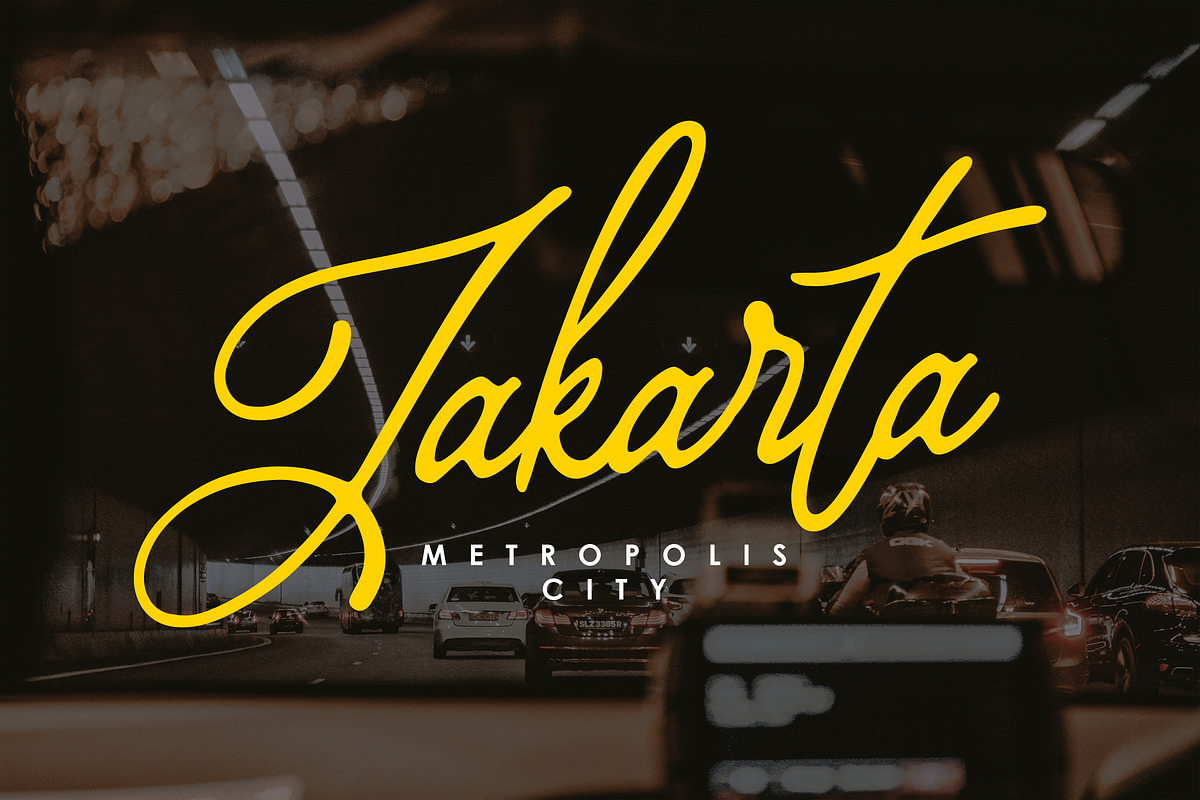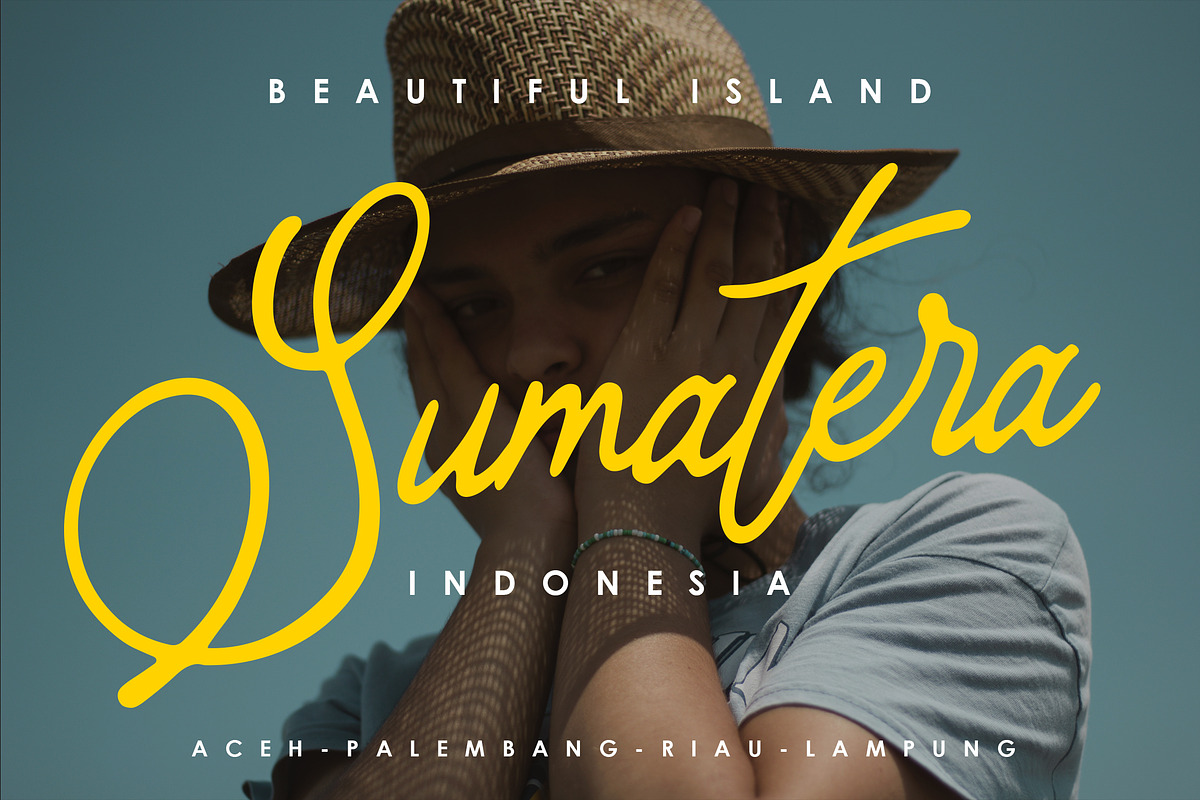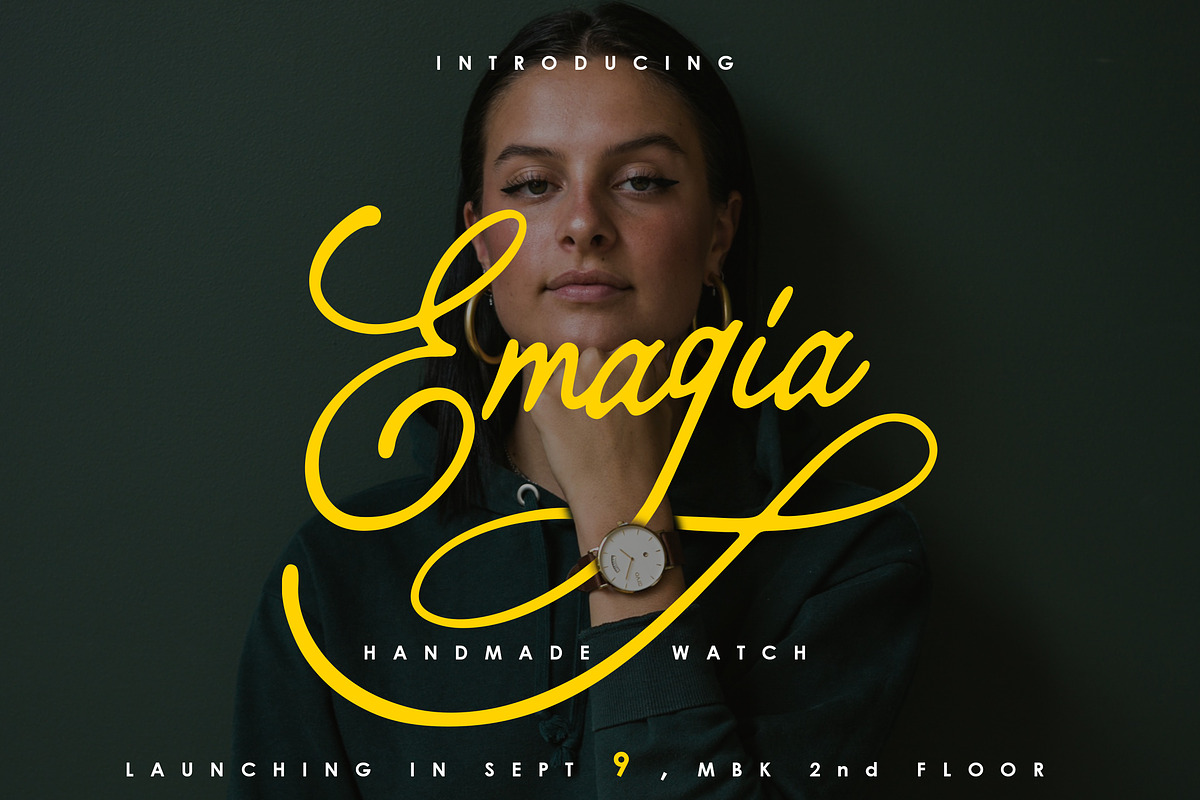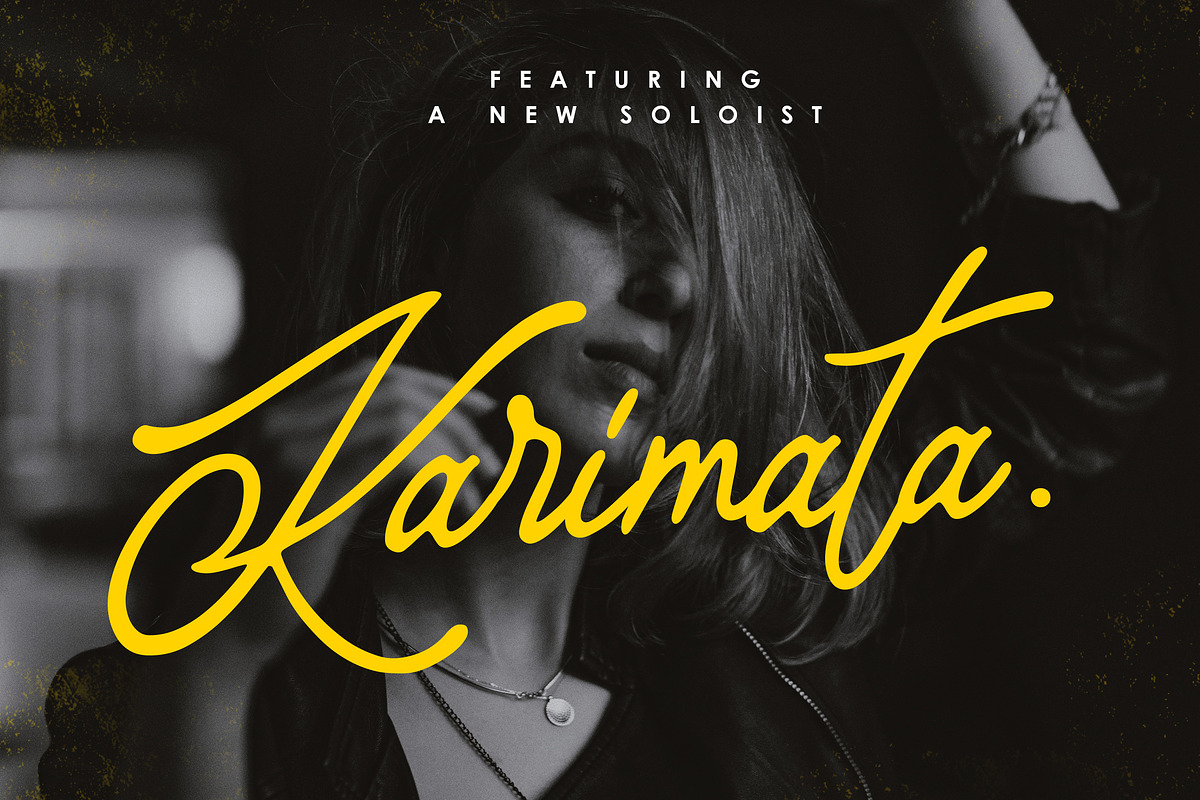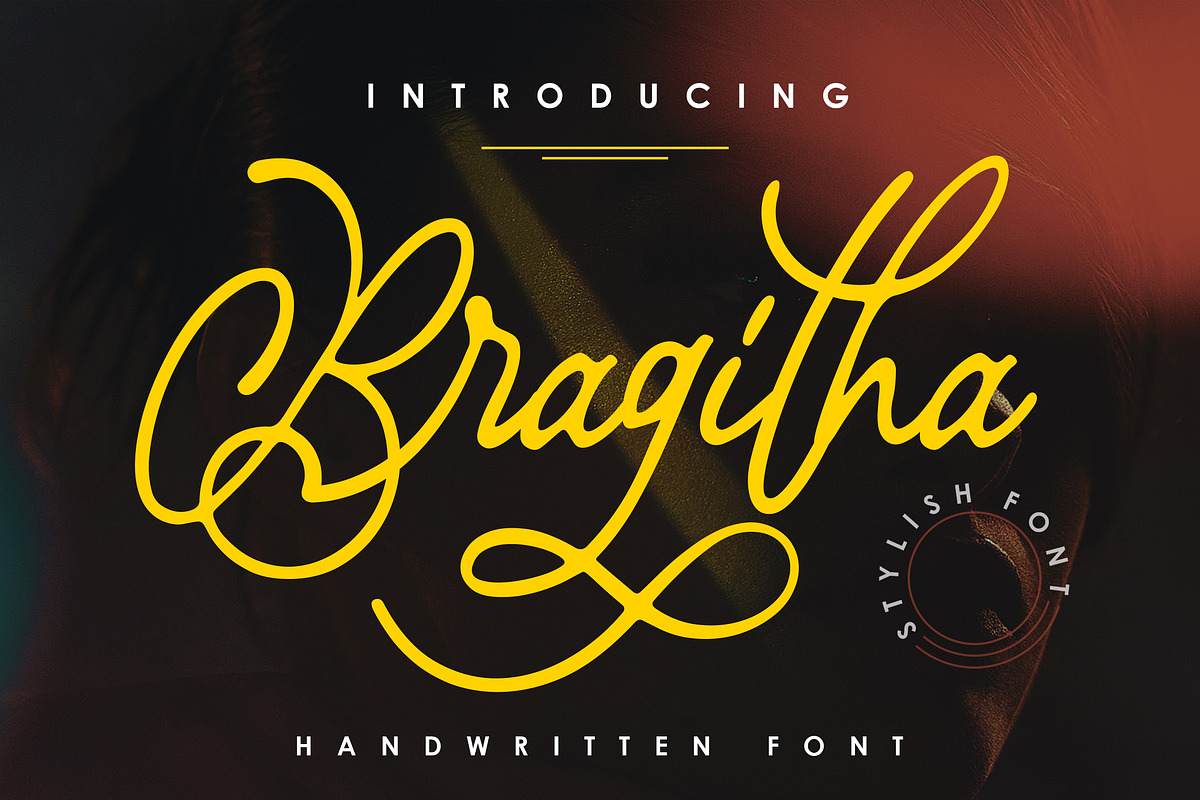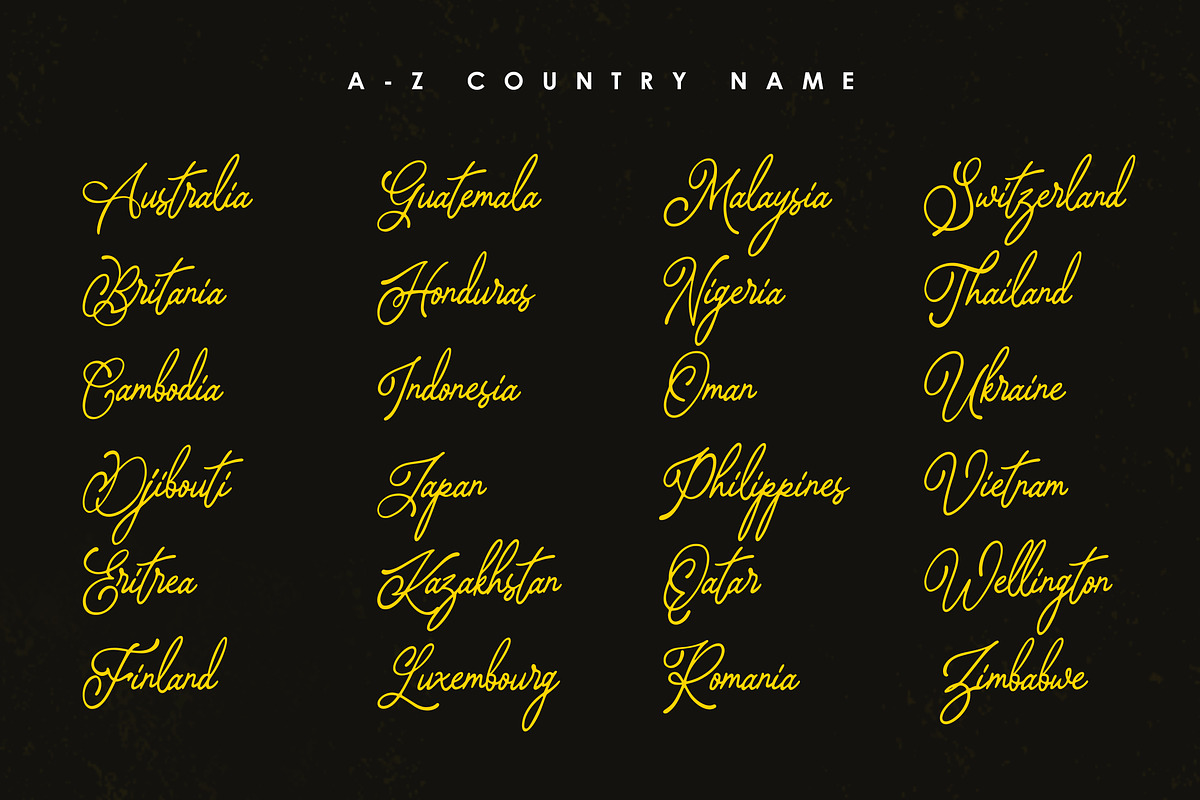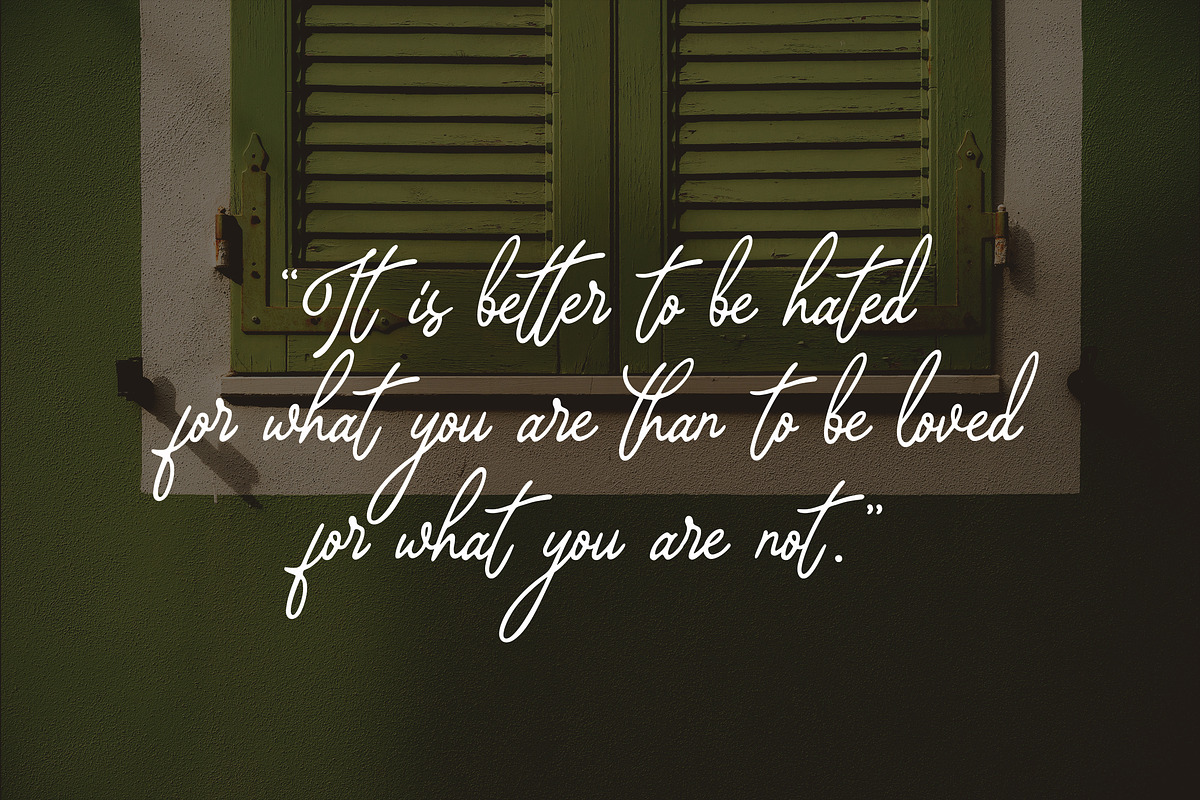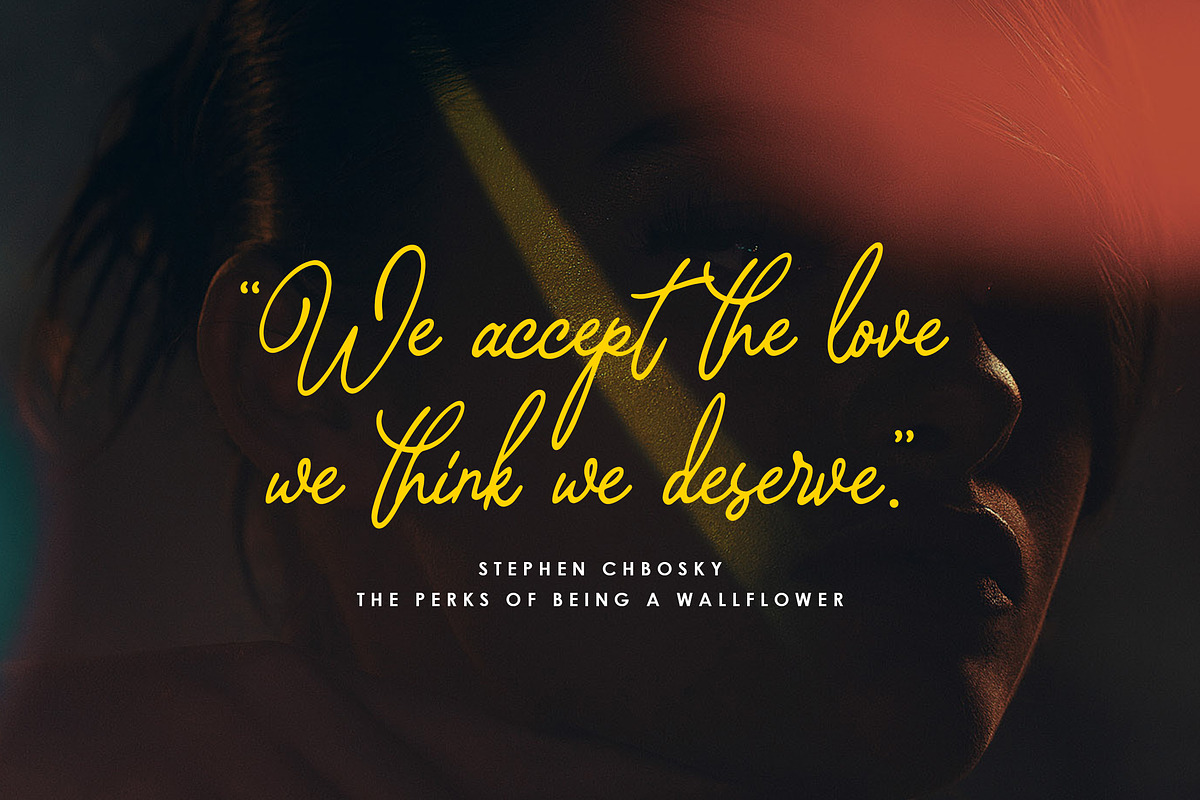
Bragitha - Stylish Font
Bragitha Stylish Handwritten Font
Bragitha Font can be used for various media like special events, Christmas, Valentine, for invitations, logos, packaging, poster, wedding, movie titles, book titles, social media,, branding, and others.